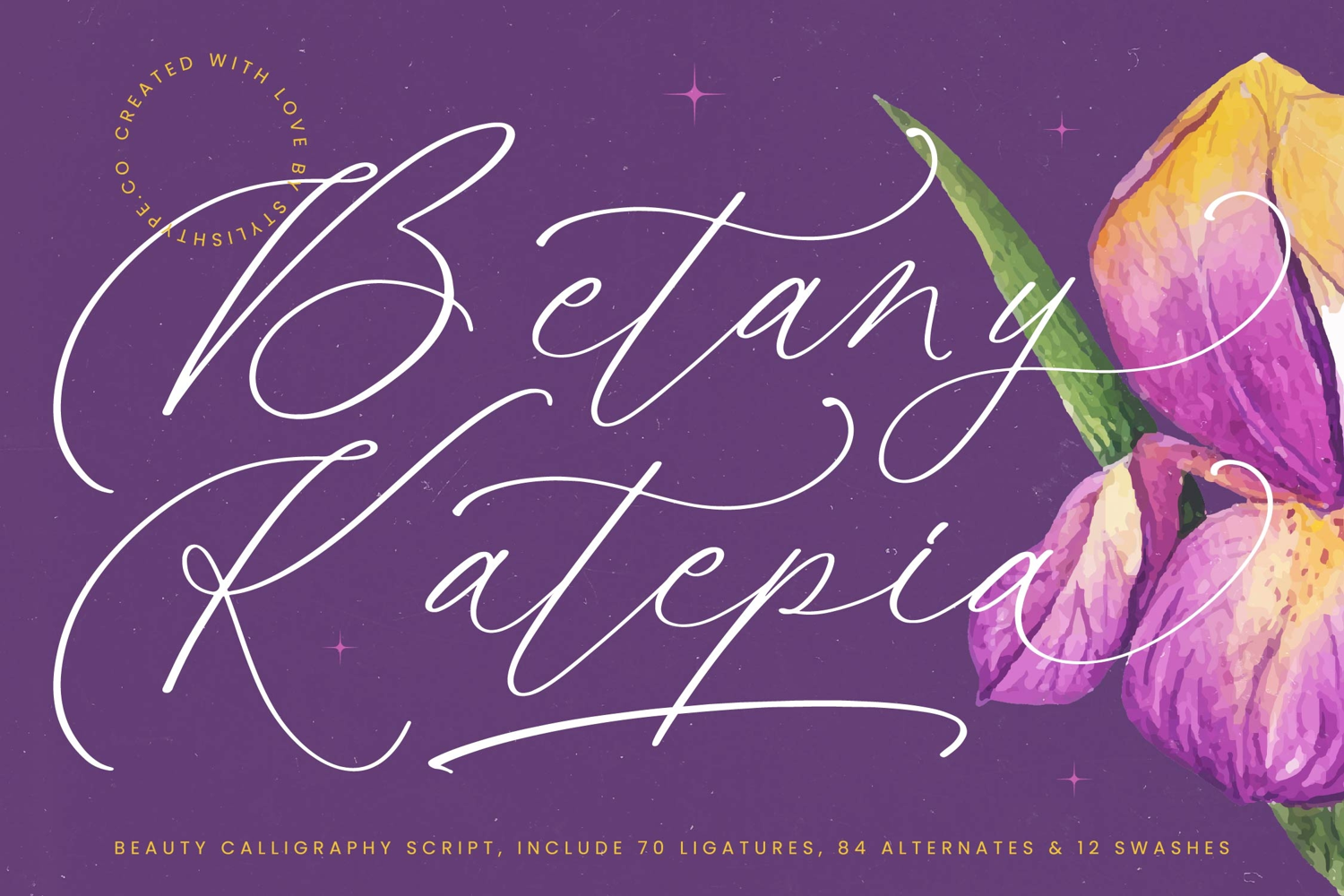
Betany Katepia - Beauty Calligraphy Script
Step into a world of refined elegance and timeless beauty with **Betany Katepia**, a typeface that turns every design into a poetic expression of grace. This exquisite beauty calligraphy script is meticulously crafted to bring a touch of artisanal sophistication to your most cherished creative projects.
Inspired by the delicate dance of ink on parchment and the ethereal bloom of a midnight iris, the font captures a sense of classic romance. Its fluid motion and elongated strokes evoke the atmosphere of high-end ateliers and secret garden soirées, offering a visual narrative that is both intimate and grand.
This font family is engineered for a **luxury typography** experience, ensuring a powerful **branding impact** across all platforms. While its roots are in script, it functions as a stunning **editorial font** that can stand alongside a **modern serif display** or **high-contrast serif** to create a balanced, high-fashion aesthetic in any layout.
Staying ahead of the **modern serif trend**, this typeface redefines the standard for **editorial display fonts** by incorporating a rhythmic flow. It is a masterpiece of **character-driven typography**, designed to meet the demands of modern designers who seek a blend of traditional flair and contemporary clean lines.
Whether you are crafting a high-end **logo design** or building a cohesive **branding** identity, this script performs flawlessly. It is the perfect choice for **wedding** invitations, **fashion** branding, premium **packaging**, and chic **editorial** spreads that require a signature, hand-touched feel.
This professional package is loaded with technical excellence, including 70 **ligatures** and 84 **alternates** to provide endless customization. With 12 decorative **swashes**, full **multilingual** support, and a vast array of **international characters**, it offers the global compatibility needed for world-class design work.